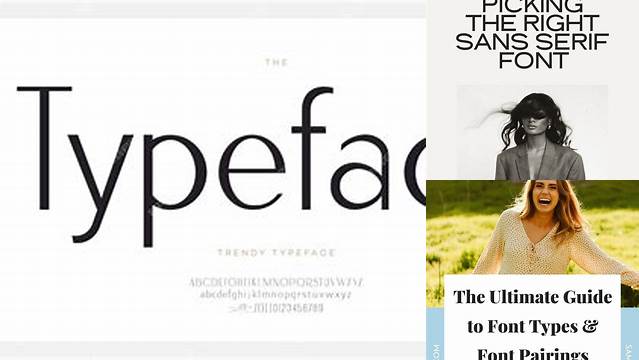
Sans Serif Font Guide: Types, Uses & Freepik Finds
Hey guys! Are you ready to dive into the world of sans serif fonts? If you're looking for a font that's clean, modern, and super versatile, then you've come to the right place. In this article, we'll be exploring everything about sans serif fonts, especially those you can find on Freepik. Whether you're a designer, a blogger, or just someone who loves typography, this guide will help you understand and use these fantastic fonts to their full potential. Let's jump right in and discover the magic of sans serif!
What are Sans Serif Fonts?
First off, what exactly are sans serif fonts? The term "sans serif" comes from French, meaning "without serifs." Serifs are those little decorative strokes at the end of letters you see in fonts like Times New Roman. Sans serif fonts, on the other hand, are clean and straightforward, without those extra flourishes. This gives them a modern and minimalist look, making them perfect for a wide range of applications. Think logos, websites, posters, and even body text – sans serif fonts are incredibly versatile.
History and Evolution
The history of sans serif fonts is quite fascinating. They emerged in the early 19th century as a response to the ornate and decorative typefaces that were popular at the time. The first sans serif fonts were often used for signage and advertising due to their clear and legible nature. Over time, they gained popularity in print and digital media, becoming a staple in modern design. Today, sans serif fonts are everywhere, from the websites we browse to the apps we use on our phones.
Key Characteristics
What makes sans serif fonts so special? It's their simplicity and legibility. The absence of serifs makes the letters appear cleaner and more straightforward, which can improve readability, especially in digital formats. Sans serif fonts often have a uniform stroke weight, meaning the thickness of the lines in each letter is consistent. This contributes to their modern and minimalist aesthetic. Plus, there's a huge variety within the sans serif category, from the geometric precision of Futura to the humanist warmth of Helvetica.
Why Choose Sans Serif Fonts?
So, why should you choose sans serif fonts for your projects? Well, there are several compelling reasons. Their modern and clean look makes them ideal for contemporary designs. They're also incredibly versatile, working well in both headlines and body text. And let's not forget legibility – sans serif fonts are often easier to read on screens, making them a great choice for websites and apps. Whether you're designing a logo, creating a presentation, or writing a blog post, sans serif fonts can help you achieve a professional and polished look.
Modern and Clean Aesthetic
If you're aiming for a modern and clean aesthetic, sans serif fonts are your best friend. Their minimalist design conveys a sense of simplicity and sophistication, making them perfect for brands that want to project a contemporary image. Think about tech companies, startups, and design agencies – they often use sans serif fonts in their branding to communicate innovation and modernity. The clean lines and simple shapes of sans serif fonts create a visually appealing and uncluttered look, which can help your message stand out.
Versatility in Design
One of the greatest strengths of sans serif fonts is their versatility. They work well in a wide range of design contexts, from logos and headlines to body text and captions. This adaptability makes them a go-to choice for designers who need a font that can do it all. For example, you might use a bold sans serif for your logo, a slightly lighter sans serif for your website headers, and a regular weight sans serif for your body text. This consistency can create a cohesive and professional look across your entire brand.
Improved Legibility
In the digital age, legibility is crucial. Sans serif fonts often excel in this area, especially on screens. The absence of serifs makes the letters appear clearer and more distinct, which can improve readability, particularly at smaller sizes. This is why many websites and apps use sans serif fonts for their user interfaces. When people can easily read your content, they're more likely to engage with it. So, if you want to ensure your message gets across, choosing a legible sans serif font is a smart move.
Exploring Sans Serif Fonts on Freepik
Now, let's talk about Freepik. Freepik is a fantastic resource for designers, offering a vast library of fonts, graphics, and other design assets. And guess what? They have a ton of amazing sans serif fonts! Whether you're looking for something bold and impactful or subtle and elegant, you're sure to find it on Freepik. Let's explore some of the popular options and how you can use them in your projects.
Popular Sans Serif Fonts Available
Freepik boasts an impressive collection of sans serif fonts, catering to various design needs. Some popular choices include Open Sans, Lato, Montserrat, and Roboto. Open Sans is a classic, known for its neutrality and readability. Lato is another favorite, offering a friendly and approachable vibe. Montserrat is a geometric sans serif that's perfect for headlines and logos, while Roboto is a modern and versatile option that works well in both print and digital contexts. Each of these fonts has its unique personality, so you can choose the one that best fits your project.